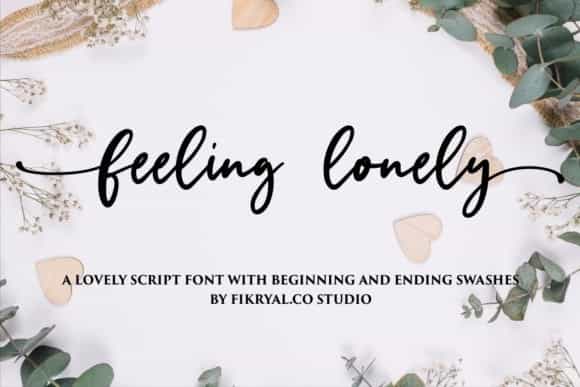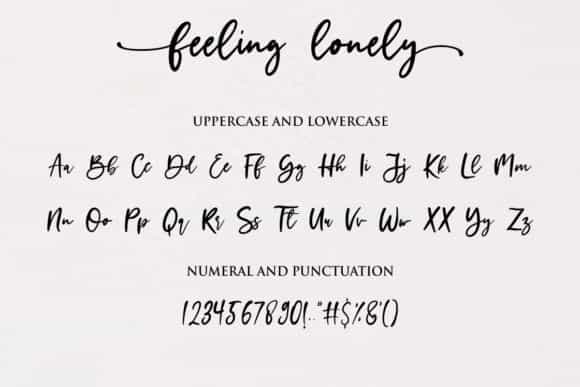
Feeling Lonely is a modern calligraphy font with a mono-line, sophisticated transverse flow. It has an alternate tug and some glyphs too♡. Perfect for logos, branding, marriage invitations, diaries, cups, mugs and greeting cards, and anything.